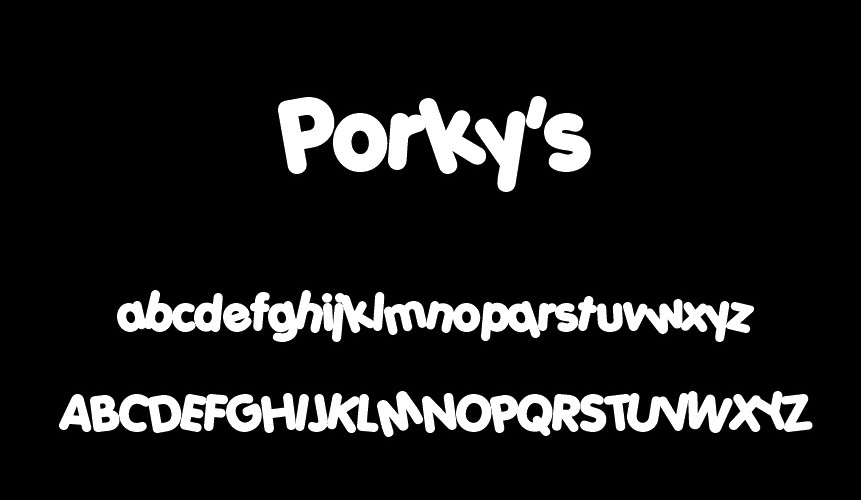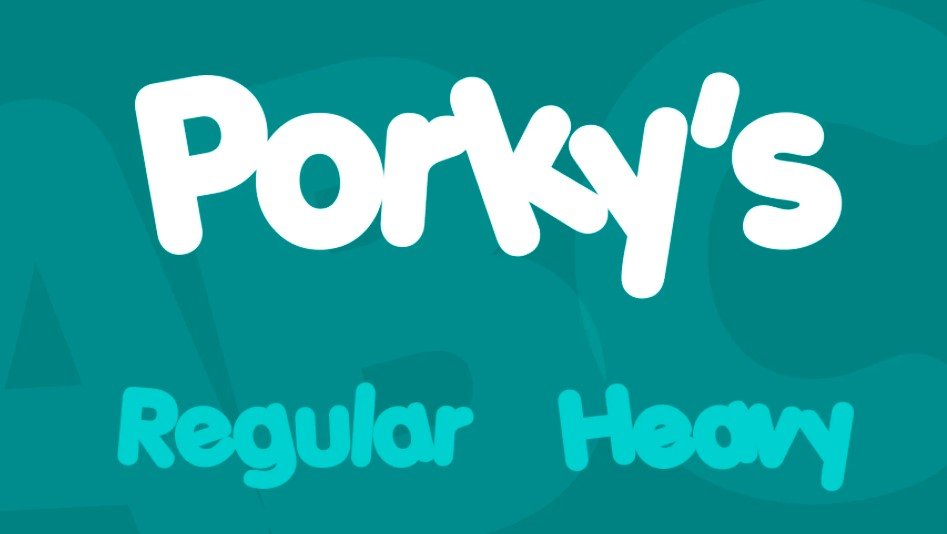
Hey there, today we are providing the most unique and elegant fashion typeface that is Porky’s Font that is a lovely textured typeface which is easy to use in all kinds of projects.
The font has a smooth and rounded texture that will give awesome look in your projects. The typeface contains all the best characters set and stylistic set that will contain the smartest features that is perfect to use with wild youth font.
You can use this font in any type of graphic application or software that you want to build. You can easily make a versatile design with this comic typeface. Having daring and sans serif features.
View Of Porky’s Font
This typeface that have catcy look have lots of huge glyphs including uppercase and lowercase letters. Let’s view the picture below to see the sample.